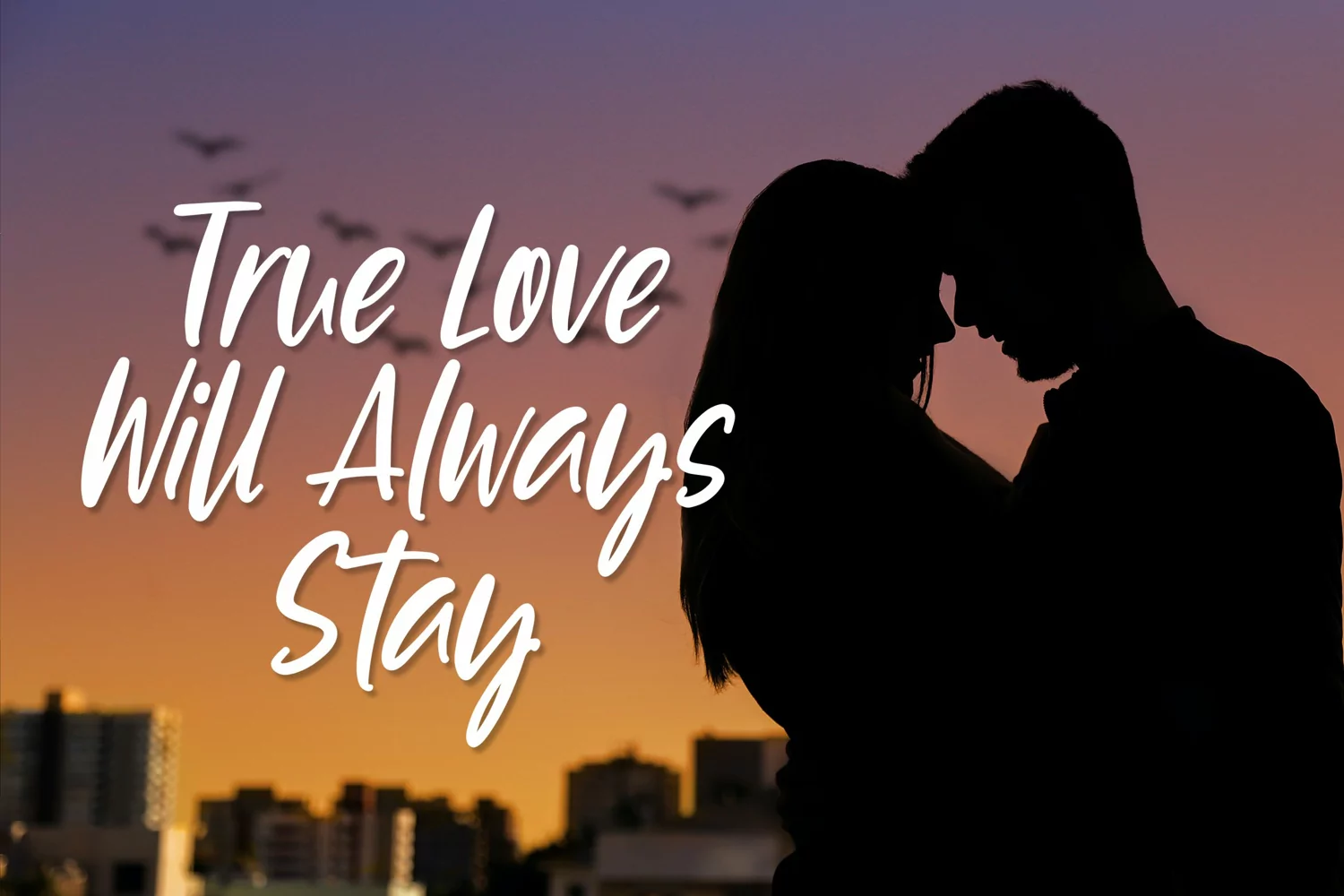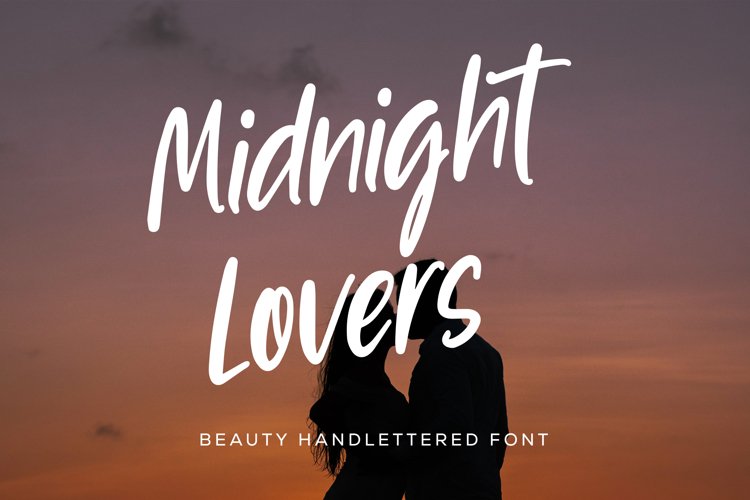
Midnight Lovers - Beauty Handlettered Font
Midnight Lovers - Beauty Handlettered Font that contain lowercase, uppercase, symbol, and also support multi language. There’s a lot ligatures in this font. This Font also comes with ligatures, alternates and many more. this font suitable for fashion, branding, catalog and other design what you want.